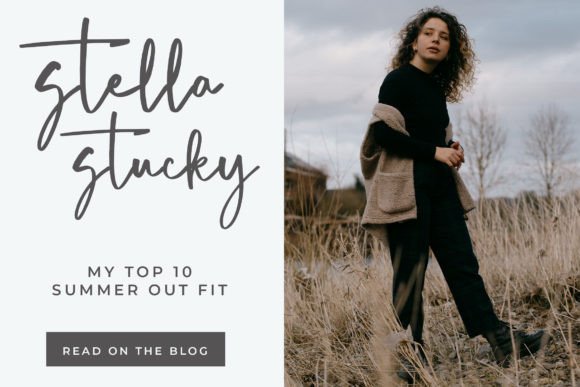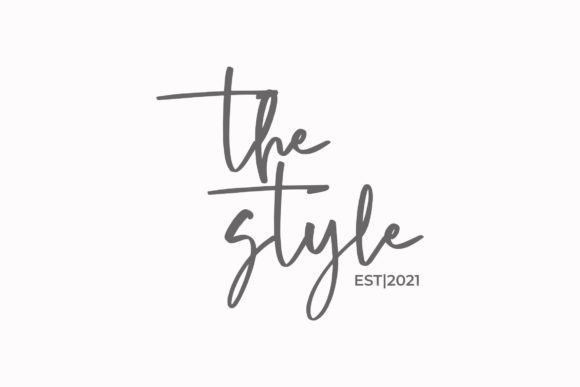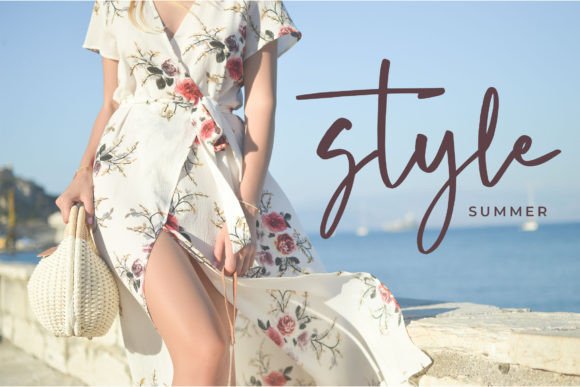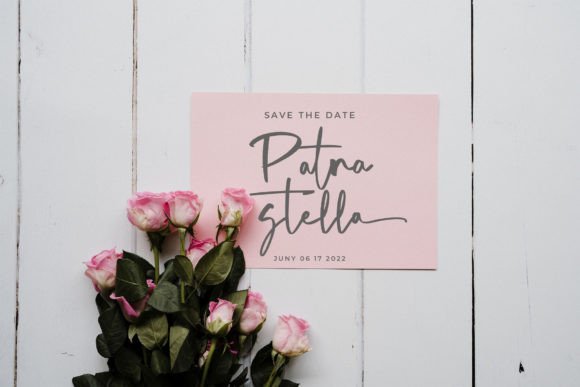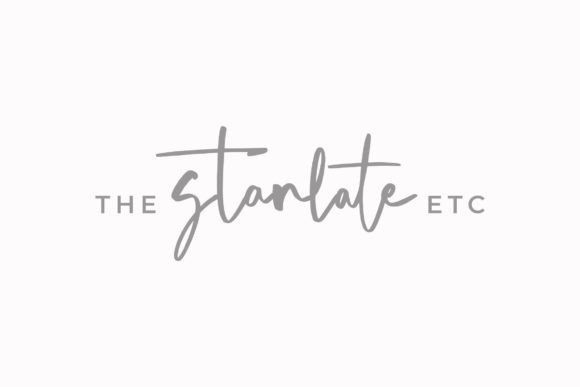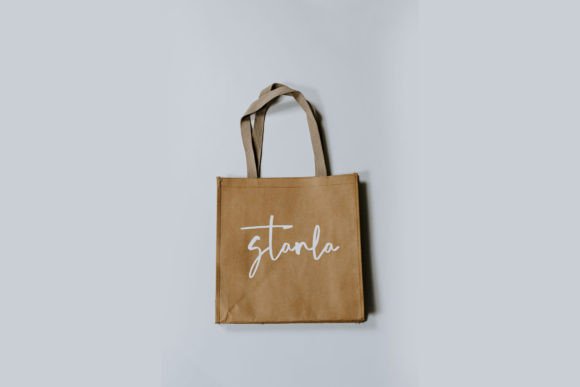
Introduction to Petraloka Font
Petraloka – Beautiful Brush Script Font Introducing Petraloka, a stunning script font characterized by its beautiful brush style.
Crafted with unique character shapes, this font exudes charm and elegance, making it perfect for enhancing the visual appeal of your designs Whether you’re creating branding materials, invitations, or eye-catching graphics, Petraloka adds a delightful and artistic touch to any project.
Key Features of Petraloka Font
Why Choose Petraloka Font?
Petraloka Font offers exceptional quality and versatility, making it a valuable addition to your design toolkit. Whether you’re creating for personal projects or commercial use, Petraloka Font delivers professional results.